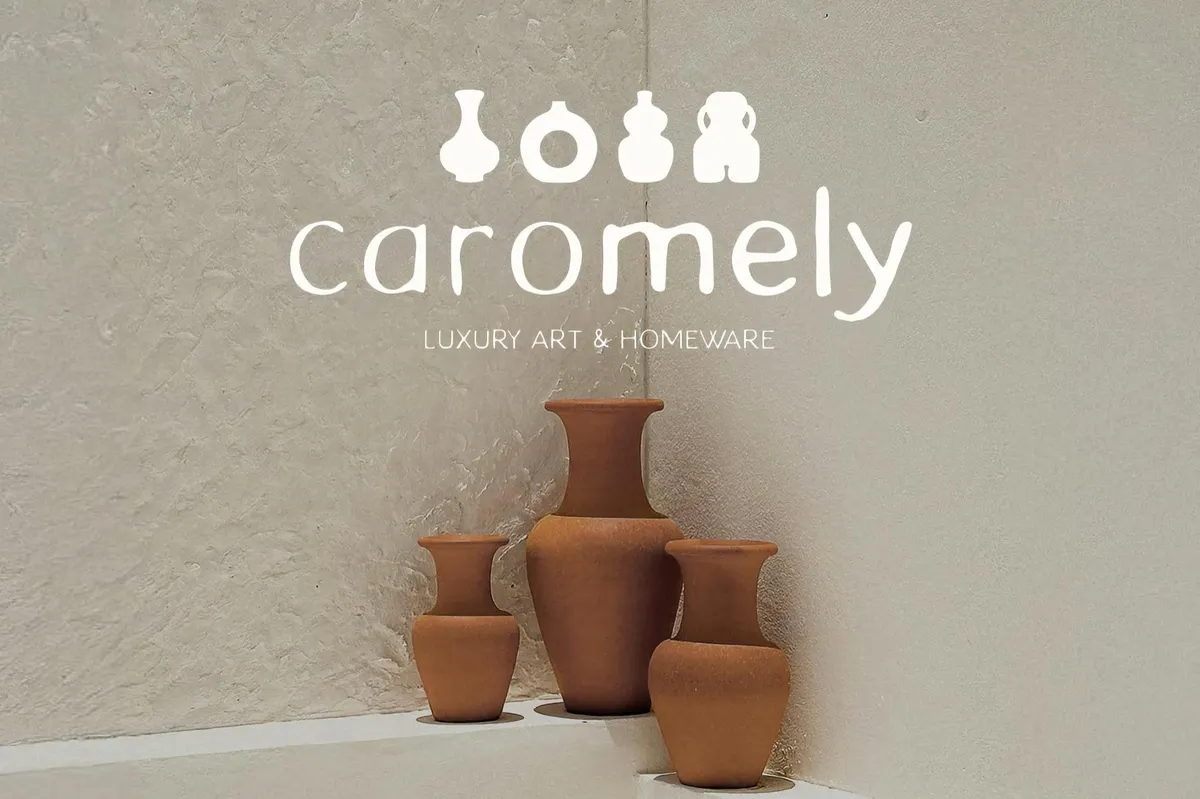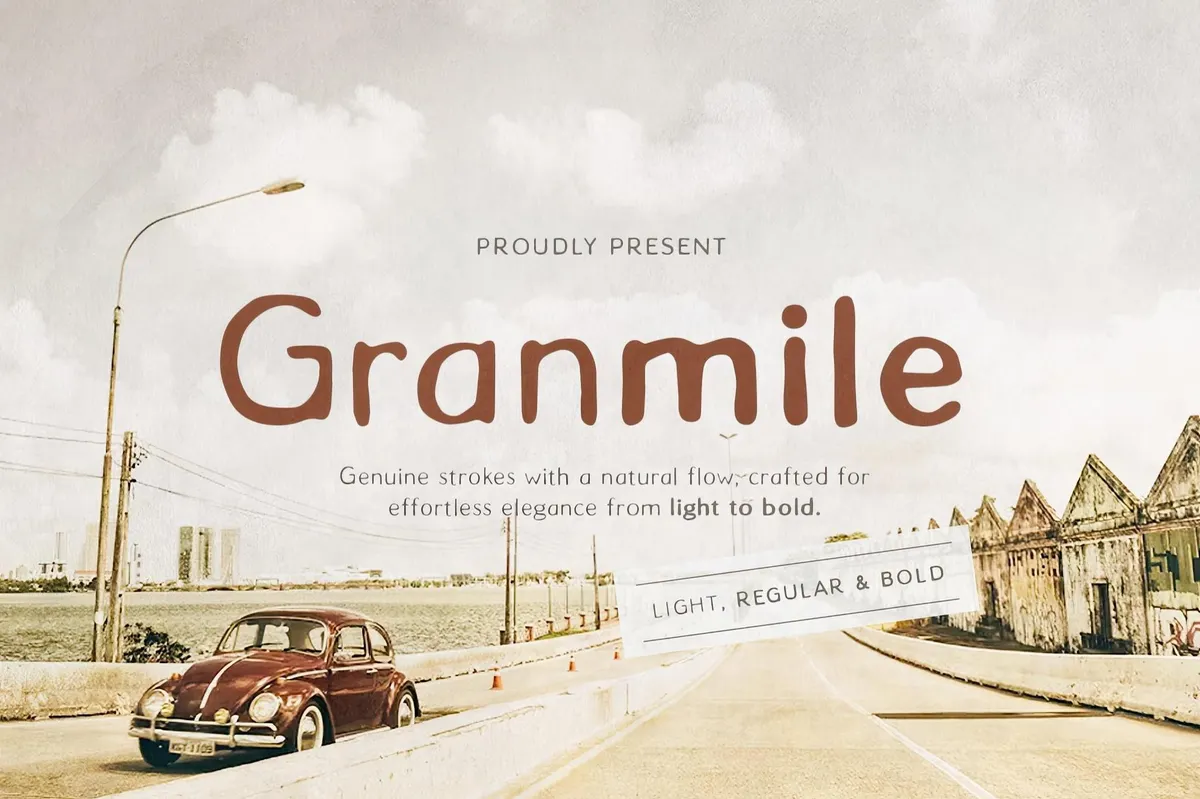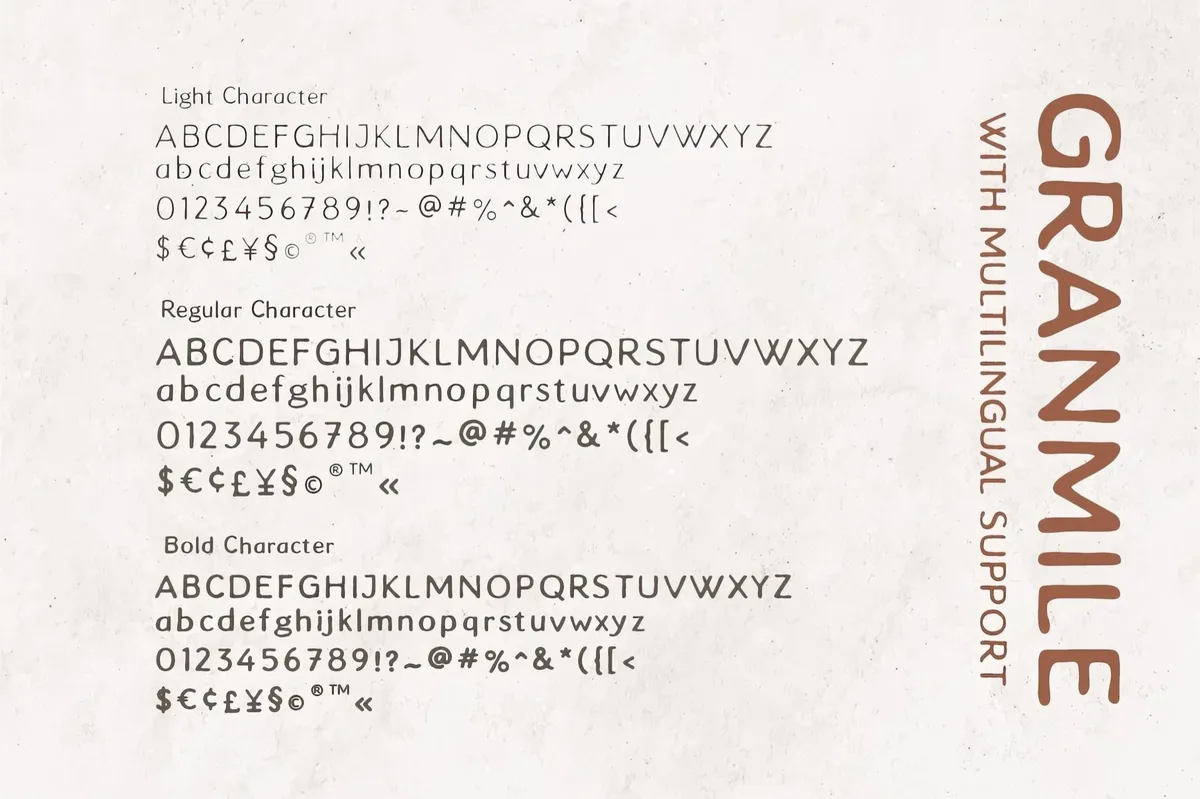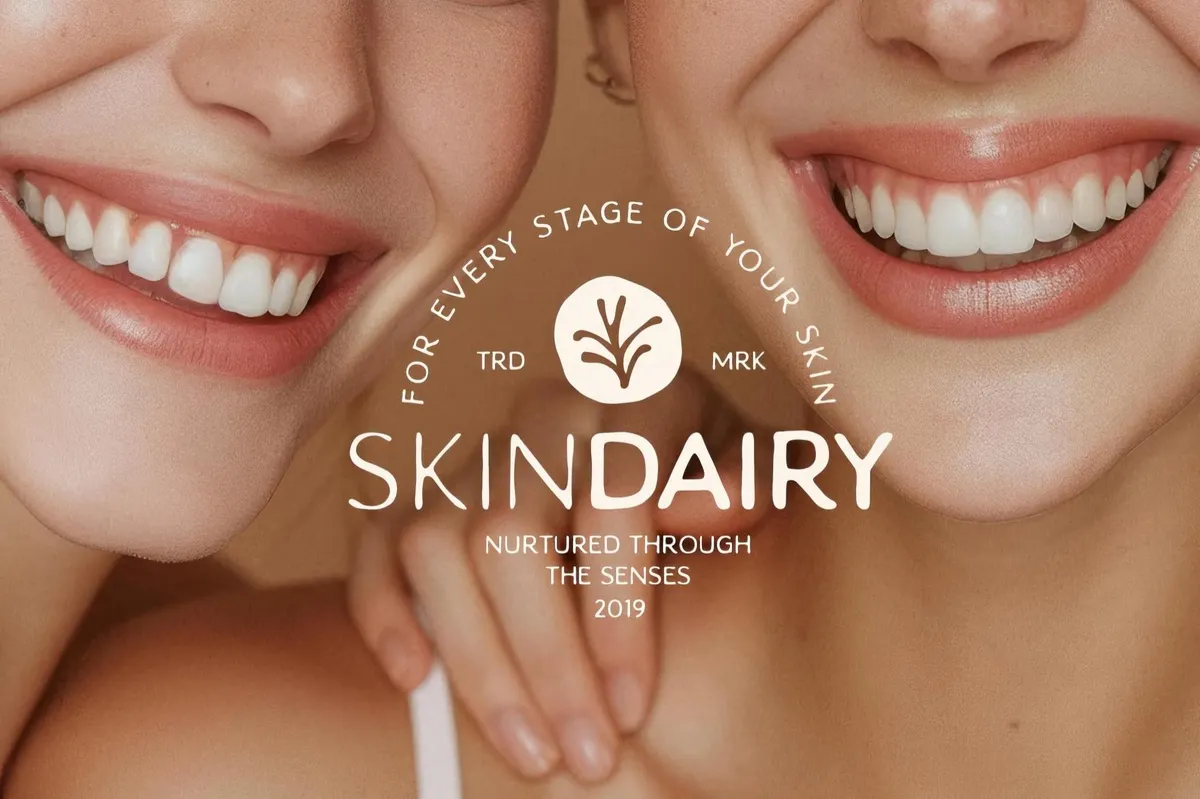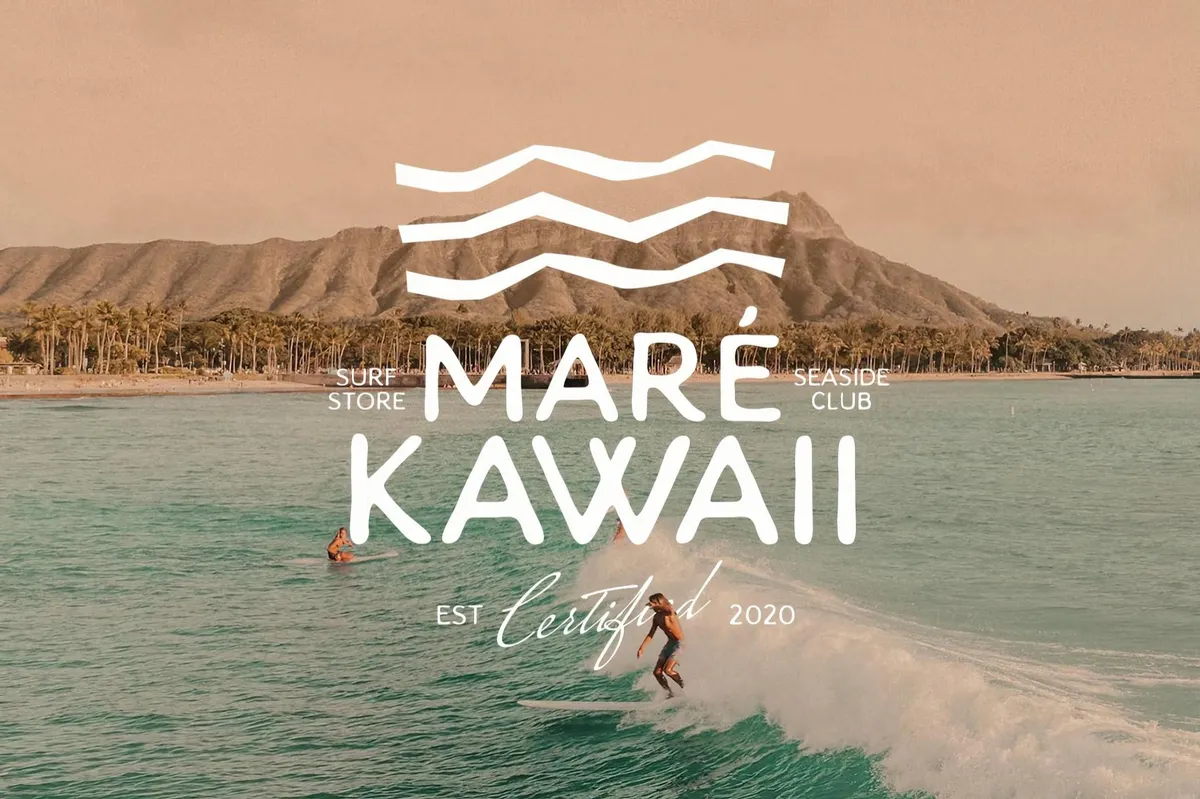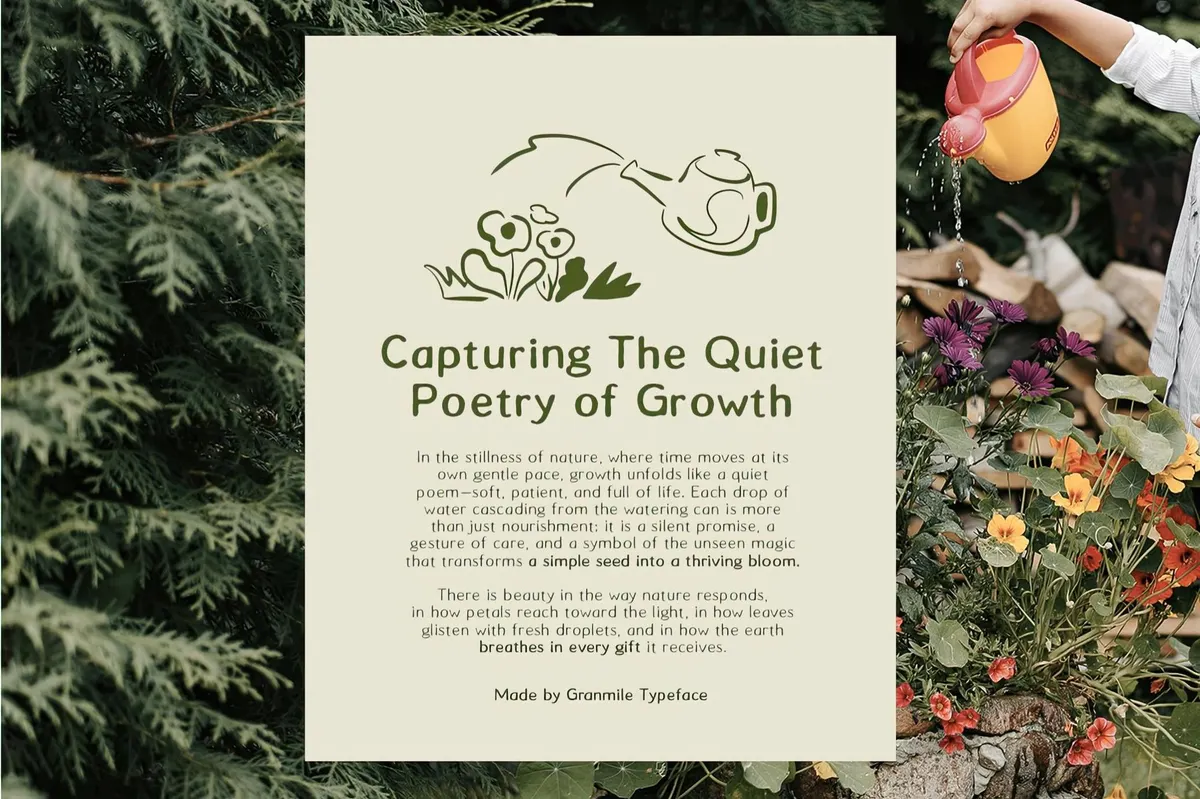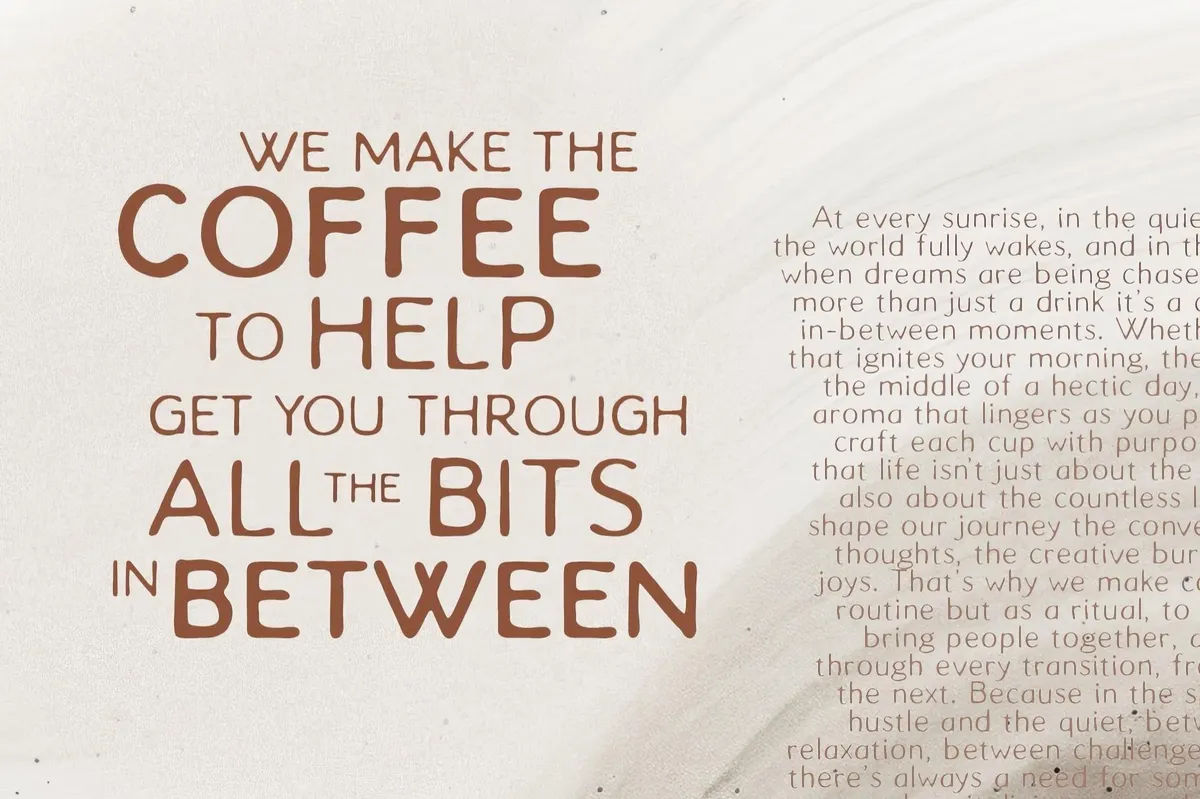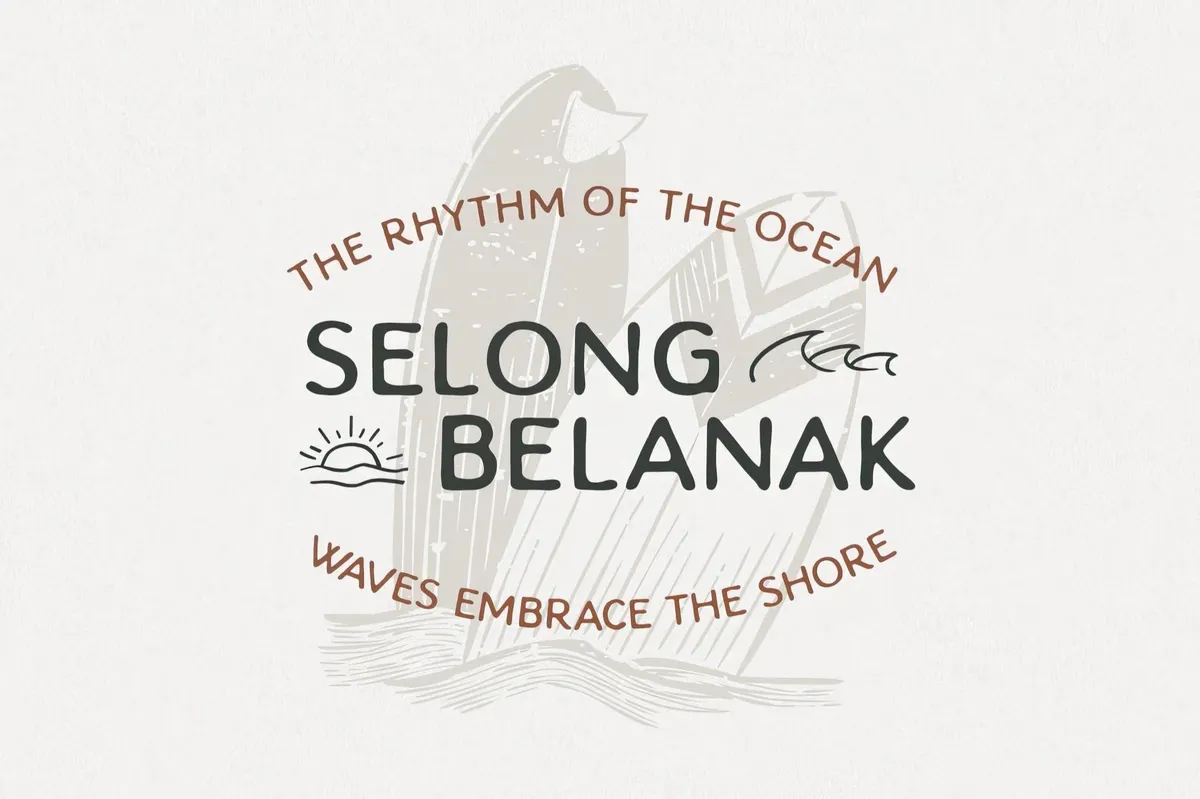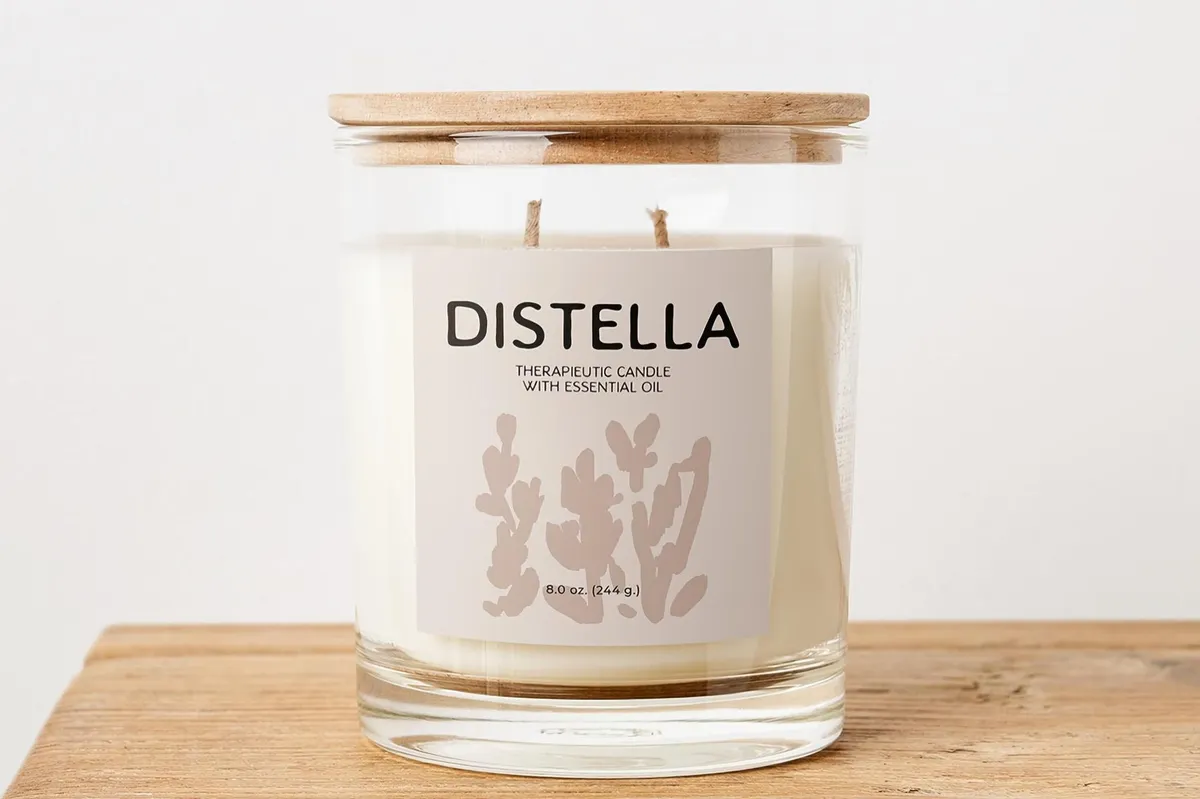
Granmile – Authentic Handwritten Typeface
Granmile exudes a warm, handwritten aesthetic with soft curves and a natural flow of lines. This font beautifully balances lightness and expressiveness, reminiscent of ink gently flowing across the paper in an old journal or a letter sent many years ago.
Beyond its nostalgic charm, Granmile offers remarkable versatility. Whether you’re designing vintage-style logos, eye-catching headlines, craft packaging, or branded typography, this font brings a lively handwritten touch to any project. The font is available in Light, Regular, and Bold styles and includes uppercase and lowercase letters. It also features numerals, punctuation, and multilingual characters.